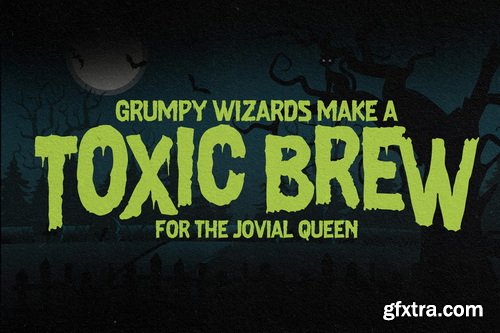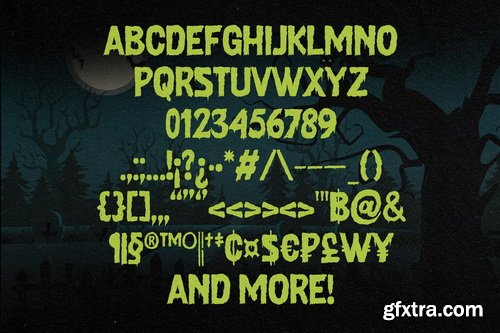
Halloween Font Horror Friday
- Horror Friday is a vintage-inspired horror display font designed for Halloween, spooky branding, and bold headline design. Drawing from the raw energy of classic horror comics and retro poster artwork, Horror Friday delivers an authentic hand-drawn feel with natural strokes and gritty personality.
- Perfect for logos, posters, websites, signage, print products, and brand identity projects, its expressive letterforms bring instant spooky vibes to any design. With stylistic details in characters like A, R, and E, plus Stylistic Set 01 (SS01) for unique alternates, you’ll have endless creative options for building atmospheric and eerie branding. Horror Friday also includes smooth ligatures to elevate logo and editorial work.
- The family comes in 3 styles — Regular, Outline, and Shadow — making it versatile for layering effects and vintage-inspired type treatments. Provided in OTF, TTF, WOFF, and WOFF2 formats, Horror Friday is fully optimized for both print and digital platforms. Supporting Basic Latin and Extended Latin, it’s perfect for global designers who want to craft chilling, bold, and unforgettable visuals.